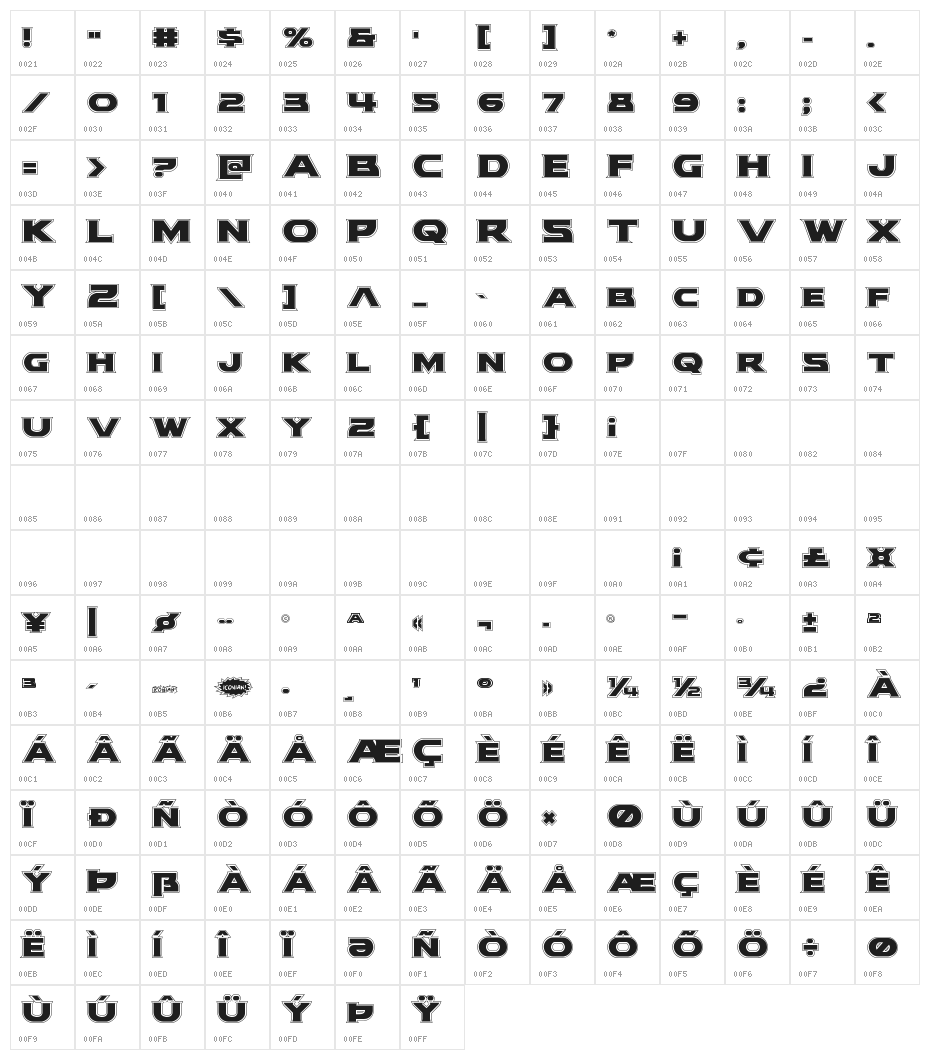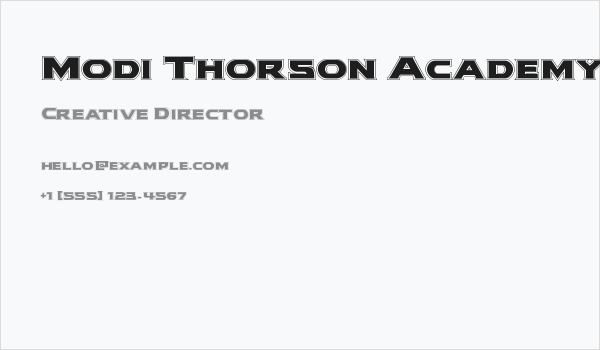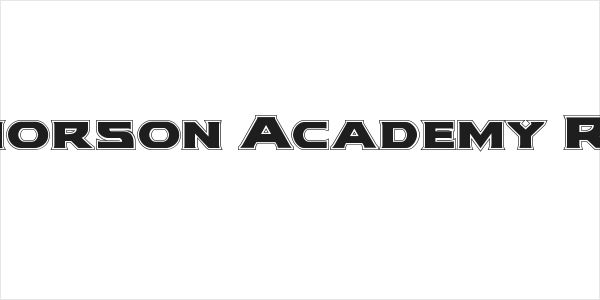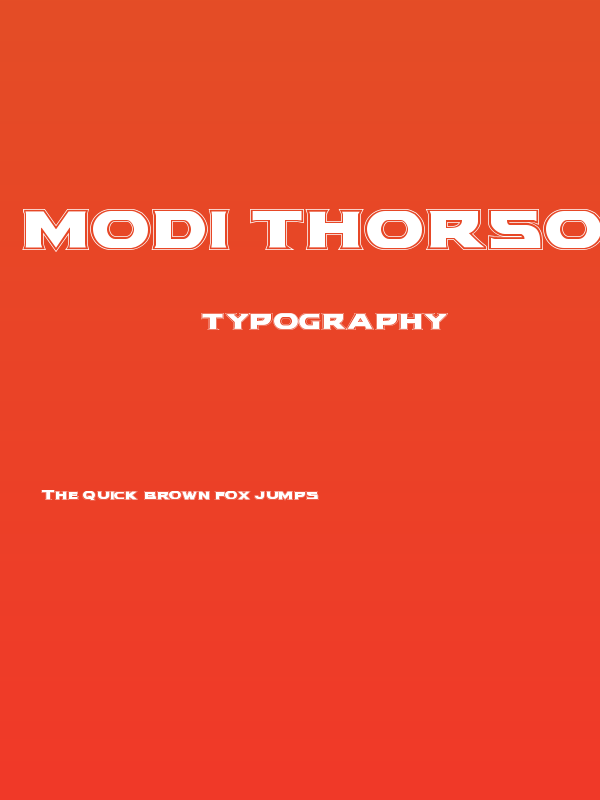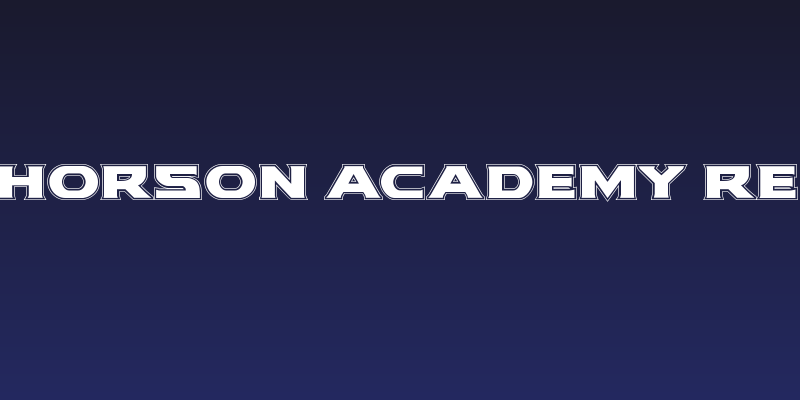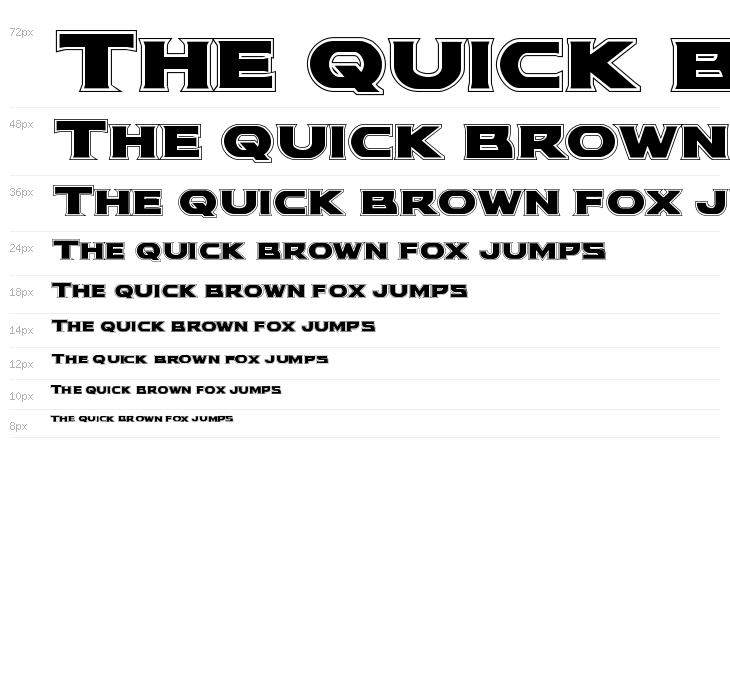
Modi Thorson Academy Regular Font
Modi Thorson Academy Regular Description
This font features a bold, geometric design with a strong presence. The characters are outlined with a thick border, giving them a three-dimensional effect. The style is reminiscent of athletic or collegiate themes, with sharp angles and a sturdy appearance. The uppercase and lowercase letters maintain a consistent weight, and the numerals are equally robust. Special characters are designed to match the boldness of the alphabet, ensuring a cohesive look across all text. This font is ideal for making a statement, with its eye-catching and powerful aesthetic.
| Proposed Projects | Ideal for sports team branding, event posters, and merchandise designs. |